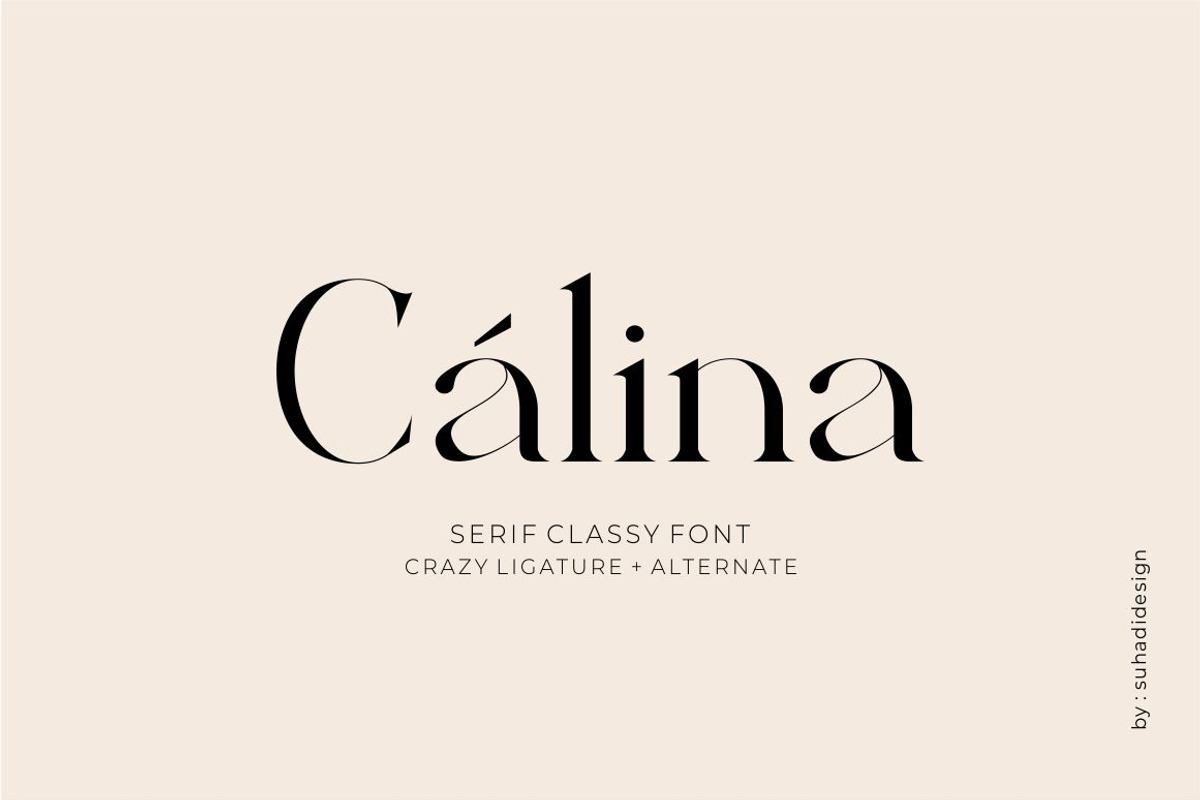
You must purchase this font for commercial use. However, you can download Calina Serif Classy Font Free Download for testing purposes. Calina is an elegant and sophisticated serif font that brings a touch of luxury and refinement to your designs. With its high contrast strokes, clean lines, and delicate serifs, Calina is perfect for upscale branding, editorial design, fashion magazines, wedding invitations, and premium packaging.
Its timeless beauty and classic appeal make it ideal for projects that require a polished, classy look. Whether you're creating a luxurious logo, a chic magazine cover, or stylish signage, Calina Serif Classy Font Free Download will help your designs stand out with elegance and professionalism.